- Introducing Korachi – the ultimate font for designers seeking a playful and cheerful touch! with plenty of ligatures and stylistic alternatives. Perfect for creating logos, greeting cards, posters, packaging and so much more! Its charming and warm character will help you give your project a truly unique feel.
- Designed and kerned with care and love to make using it a breeze.
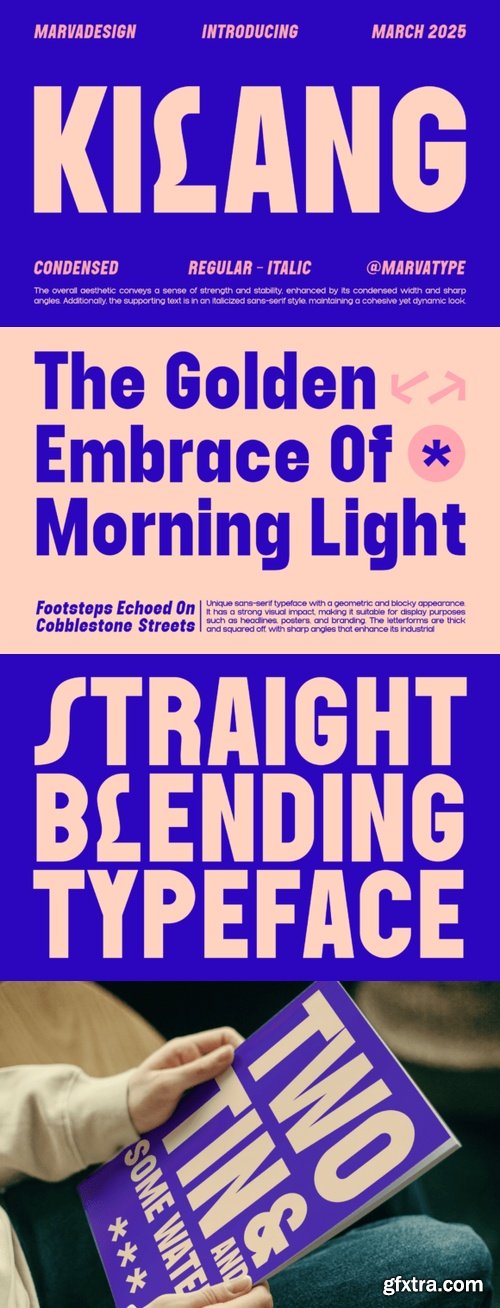
- Introducing New Condensed Sans Serif Name Font Is KILANG. KILANG is a bold, solid sans-serif typeface with a geometric, blocky structure. The typeface conveys a strong, stable feel, emphasized by its sharp angles and square letterforms. The solid width enhances its visual impact, making it ideal for display purposes such as headlines, posters, and branding. Additionally, the typeface is available in both regular and italic styles, with the italic version maintaining a cohesive yet dynamic look. Supporting text follows the italic sans-serif style, complementing the overall aesthetic with a modern, industrial feel.
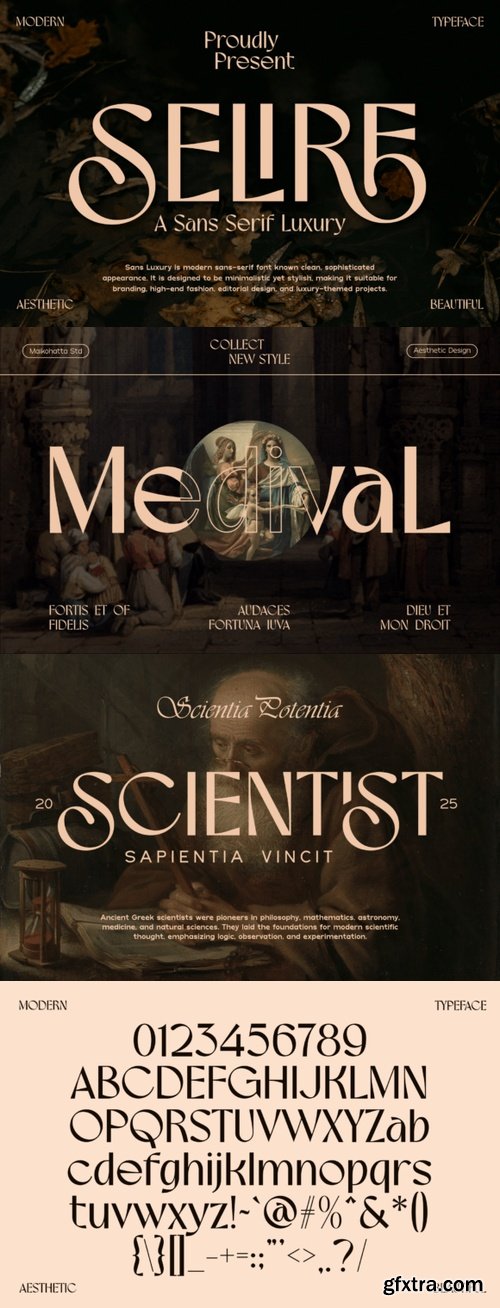
- This font is a type of letter that has special characteristics that create the impression of luxury, elegance and firmness. This font involves a series of design elements such as balanced thin and thick lines, gentle curves, and elegant and clean serifs. The sharp corners and fine details of each character create a highly aesthetic impression and exude an air of elegance.
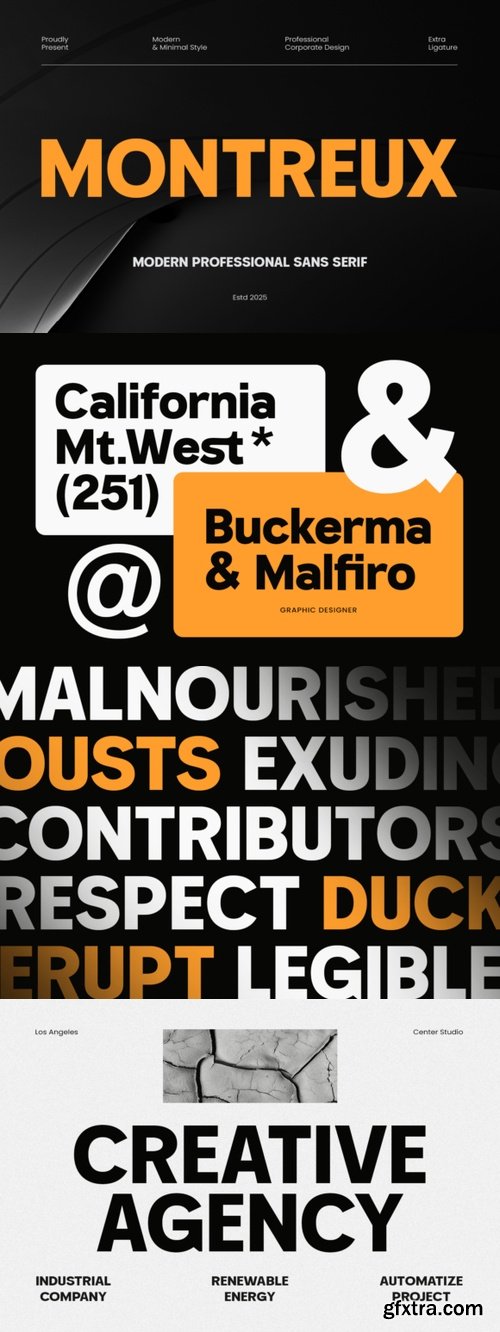
- Montreux is a bold and modern geometric sans-serif font family that draws inspiration from timeless typefaces like Futura and Avant Garde. With its clean lines, sharp edges, and minimal stroke contrast, Montreux embraces the essence of neo-grotesk design, making it a perfect choice for projects that demand a contemporary and professional look. Its large x-height ensures excellent readability, even at smaller sizes, while the geometrical letterforms lend a sleek and sophisticated vibe to your design.
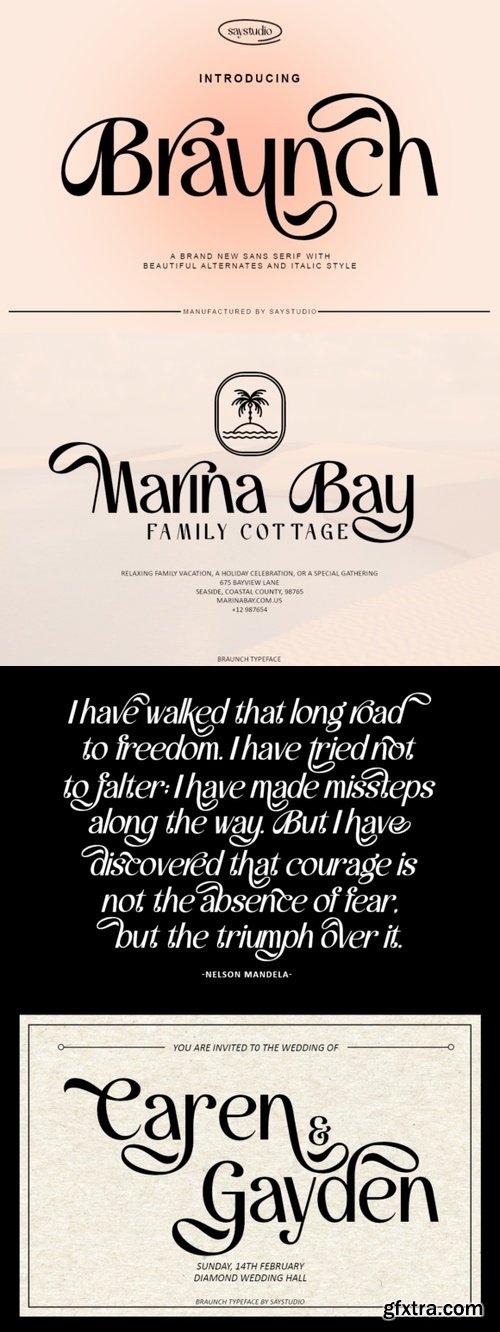
- Braunch is sans serif font with luxury and elegant style with a unique modern typeface with beautiful character alternates. Braunch Ideal for posters, magazines, and print designs, brings a touch of sophistication and cool luxury vibes to every project.
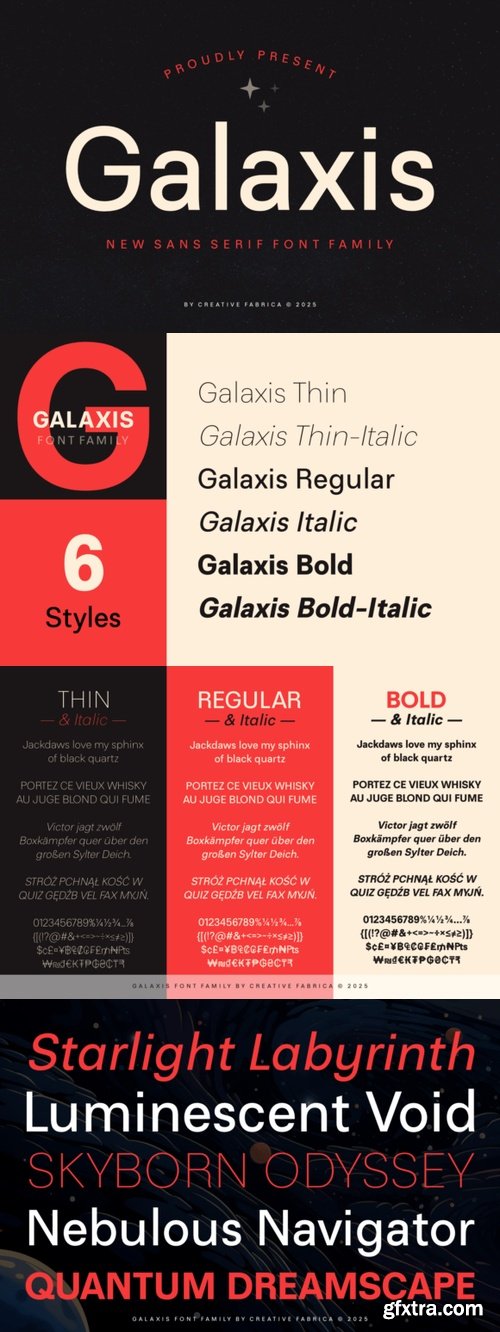
- Meet Galaxis, a sleek and contemporary sans-serif font family inspired by the timeless elegance of the Univers Font. Galaxis effortlessly blends classic sophistication with modern minimalism, creating a versatile typeface perfect for branding, editorial layouts, web interfaces, and impactful headlines. With its precise geometric structure and refined letterforms, Galaxis ensures exceptional readability and visual harmony across all designs. Featuring 6 elegant styles—from Thin to Bold Italic—Galaxis is ready to elevate your next creative project with clarity, professionalism, and a touch of cosmopolitan charm.
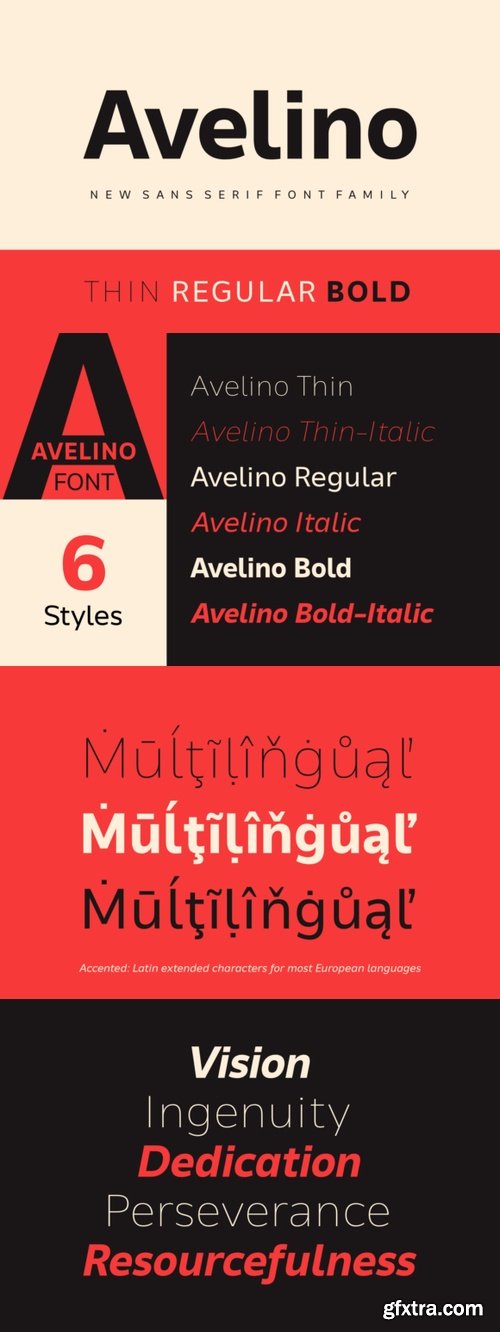
- Introducing Avelino, a sleek and modern sans-serif font family inspired by the friendly elegance of Nunito Sans. With gently rounded edges and open, inviting letterforms, Avelino is designed for clarity, legibility, and visual comfort in a wide variety of creative projects. The font comes in 6 versatile styles—from Thin to Bold Italic—making it ideal for branding, editorial design, UI/UX, advertising, and multilingual text. Let Avelino transform your creative vision from intangible to tangible with ease and sophistication.
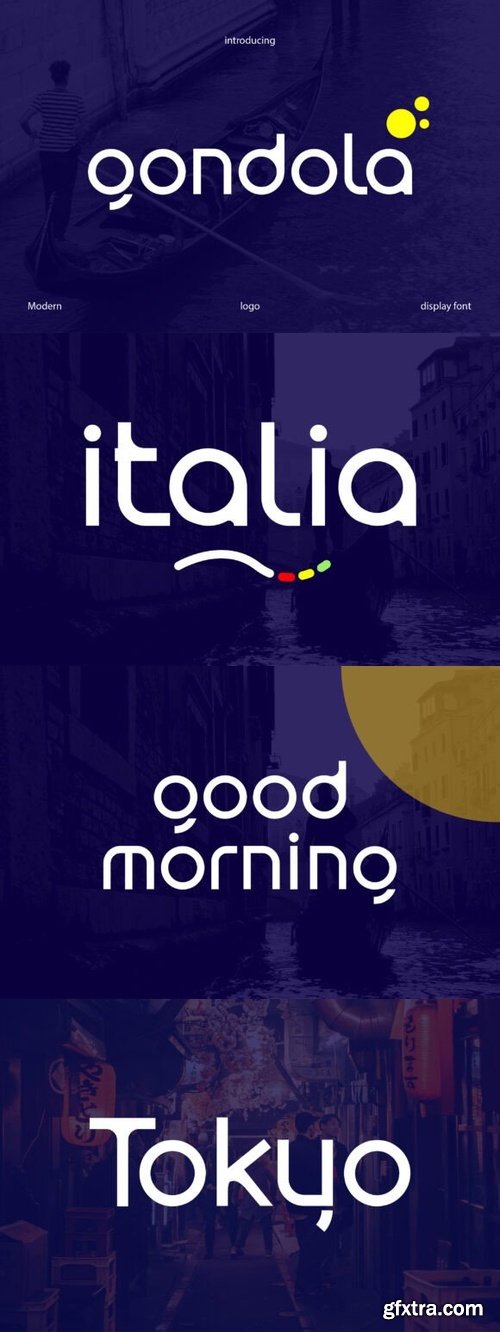
- Gondola font is a modern sans serif logo font designed for your branding projects. Inspired by the lines of circles with slightly rounded The Gondola font combines precision and creativity, making it ideal for tech companies, startups, or futuristic projects.
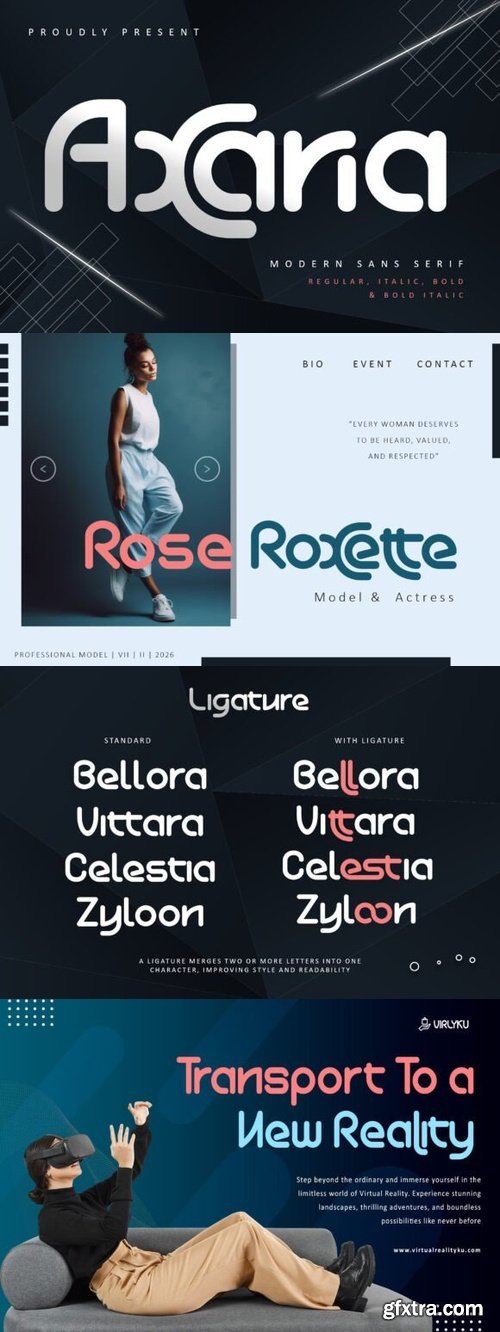
- Step into the future with Axaria, a sleek and sophisticated sans-serif font designed for modern innovation. With its clean lines and refined structure, Axaria delivers a perfect balance of elegance and strength, making it ideal for branding, editorial layouts, web design, and high-impact visuals. Whether you’re crafting a striking logo or a compelling headline, Axaria’s timeless versatility ensures your message stands out with confidence. Elevate your designs with Axaria—a font that embodies contemporary sophistication and effortless style.
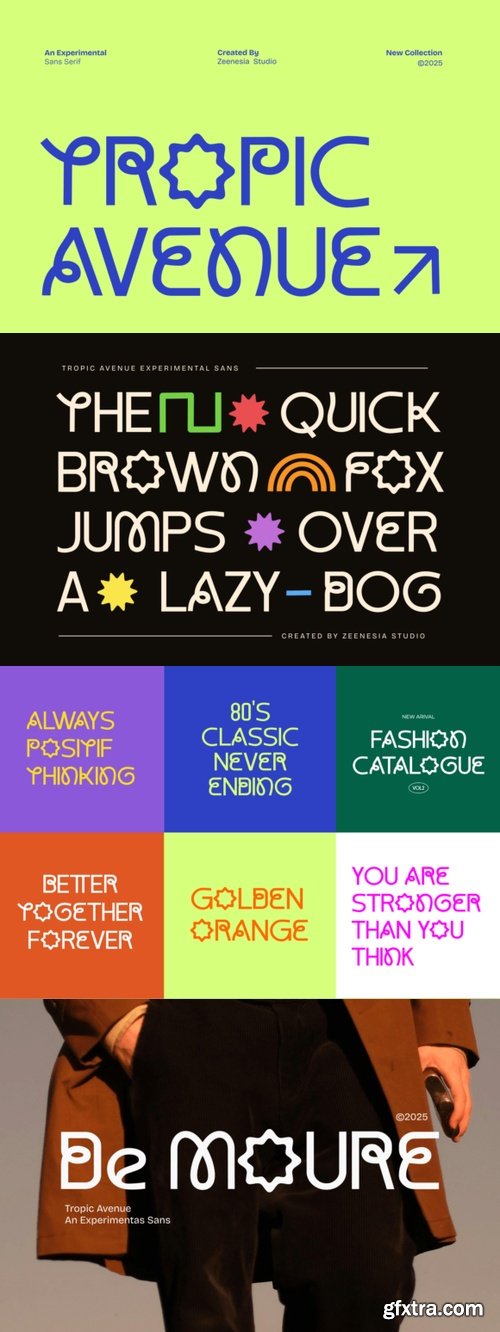
- Tropic Avenue is an experimental sans serif font. Its distinctive structure blends bold strokes with organic curves, offering a fresh take on modern typography. Each letter is thoughtfully designed to achieve a balance between clarity and artistic expression. Ideal for contemporary branding, editorial layouts, and digital media, Tropic Avenue draws attention with its unconventional yet highly legible form.
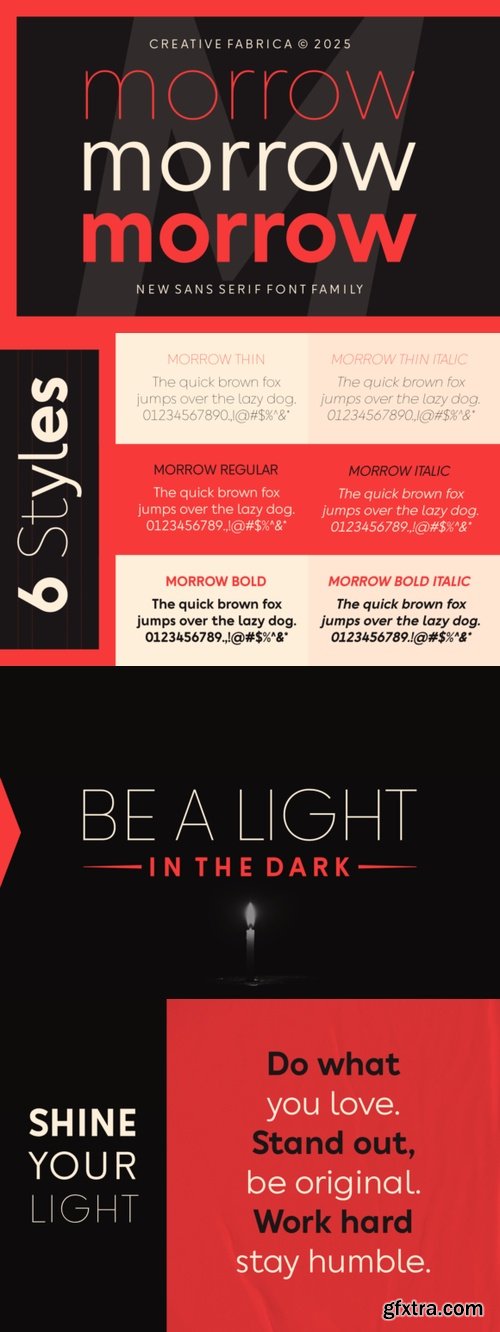
- Morrow is a sleek and modern sans-serif font family inspired by the popular Gilroy font, offering a perfect balance of elegance and functionality. With six distinct styles—from thin and refined to bold and impactful—Morrow adapts seamlessly to a variety of design needs. Its clean, geometric structure makes it an excellent choice for branding, web design, editorial layouts, advertising, and product packaging.
- Selqova is a modern grotesque typeface designed for versatility and impact. With a clean, bold, and contemporary look, it excels in both digital and print applications. Its 9 weights, plus italics, make it ideal for branding, editorial, and display purposes. Whether you're crafting a sleek logo, a minimalist poster, or a cutting-edge website, Selqova delivers unmatched readability and style.